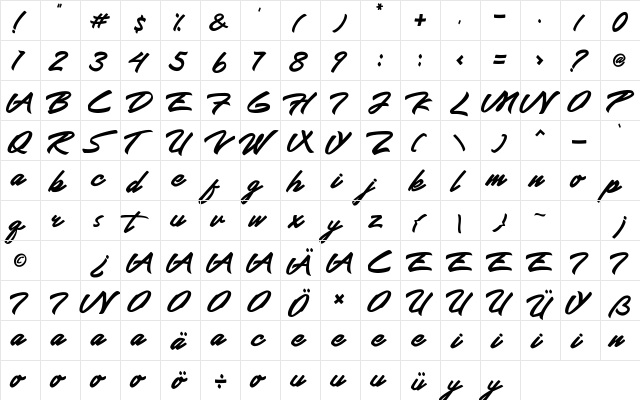
Wrongler Regular
| Foundry | Han's Co. |
| Designer | Burhan Afif |
Design Context for Wrongler Typeface
Wrongler is a composed and adaptable typeface that performs quietly and consistently across a wide range of design contexts.